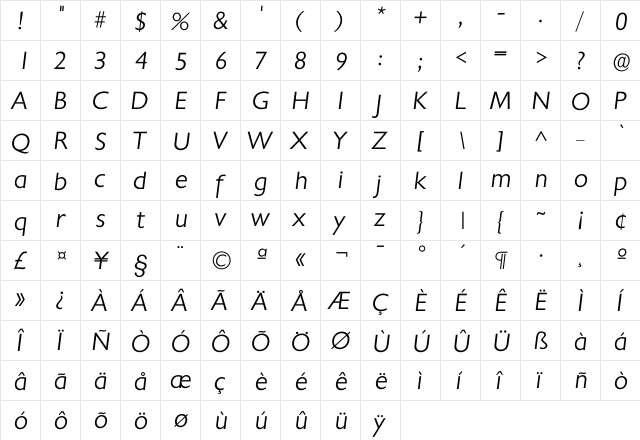
Ichantilly Light
Design Context for Ichantilly Typeface
Ichantilly takes a measured approach to typography — its balanced proportions and neutral character make it a reliable workhorse for both digital and print work. Its slender proportions lend an understated elegance to any composition.